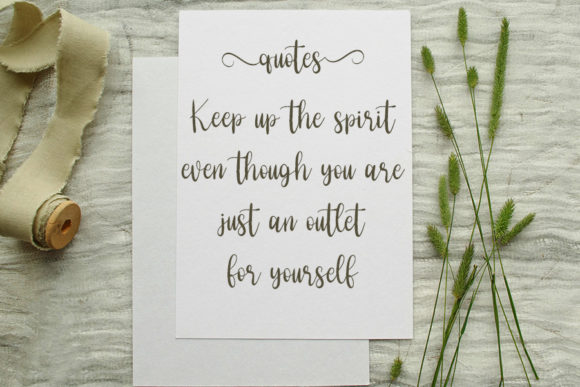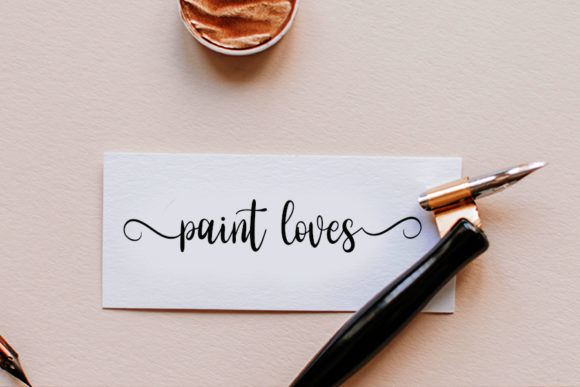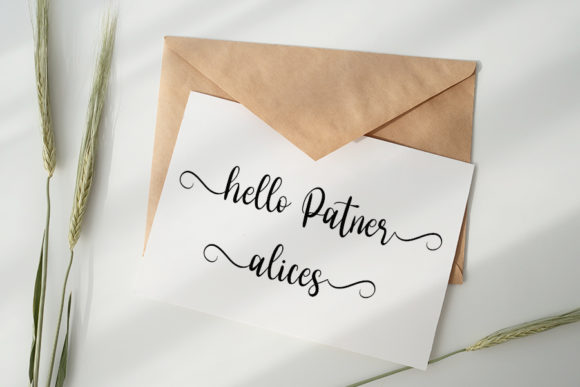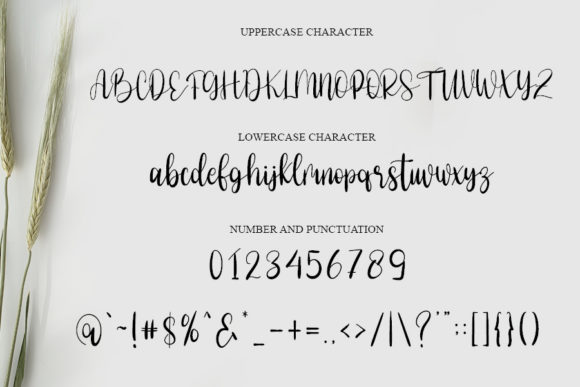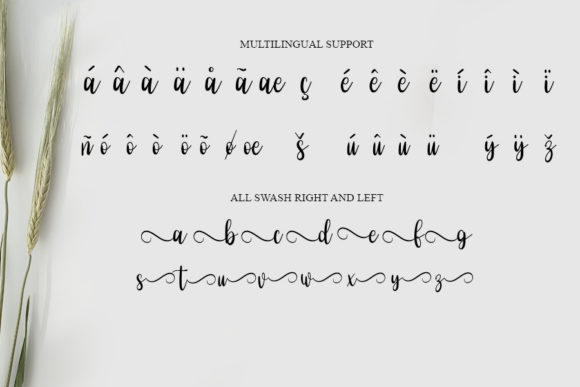
About Eassy Vigossa Font
“Eassy Vigossa” is a superb handwritten font that offers a wide range of creative possibilities. With its unique style and versatility, this font can elevate your designs across various mediums and projects.
The distinct letterforms of “Eassy Vigossa” exude a sense of charm and elegance. The flowing strokes and carefully crafted details give the font a sophisticated and refined look. Whether you’re designing a logo, creating wedding invitations, or working on headings for your projects, this font adds a touch of class and personality.
One of the notable features of “Eassy Vigossa” is its PUA encoding. PUA (Private Use Area) encoding allows you to access special characters, glyphs, and swashes that are not readily available on a standard keyboard. This gives you greater flexibility and control over your designs, allowing you to incorporate unique and decorative elements effortlessly.
The versatility of “Eassy Vigossa” makes it suitable for a wide range of applications. It can be used for branding projects, giving your logo or company name a distinctive and memorable appearance. Additionally, it works beautifully for wedding invitations, adding an elegant and romantic touch to the design.
Furthermore, “Eassy Vigossa” can be applied to headings and titles, making them stand out and capture attention. Its stylish and sophisticated look adds a touch of professionalism and refinement to any project. You can also consider using it on t-shirts, creating eye-catching and fashionable designs that reflect your unique style.
When working with “Eassy Vigossa,” don’t hesitate to experiment with different sizes, colors, and arrangements. The font’s versatility allows you to create various compositions and play with different design elements to achieve the desired effect.
In conclusion, “Eassy Vigossa” is a superb handwritten font that offers elegance and versatility. With its PUA encoding, it provides easy access to a wide range of decorative elements. Whether you’re working on logos, wedding invitations, headings, or other design projects, this font can add a touch of sophistication and beauty to your creations.